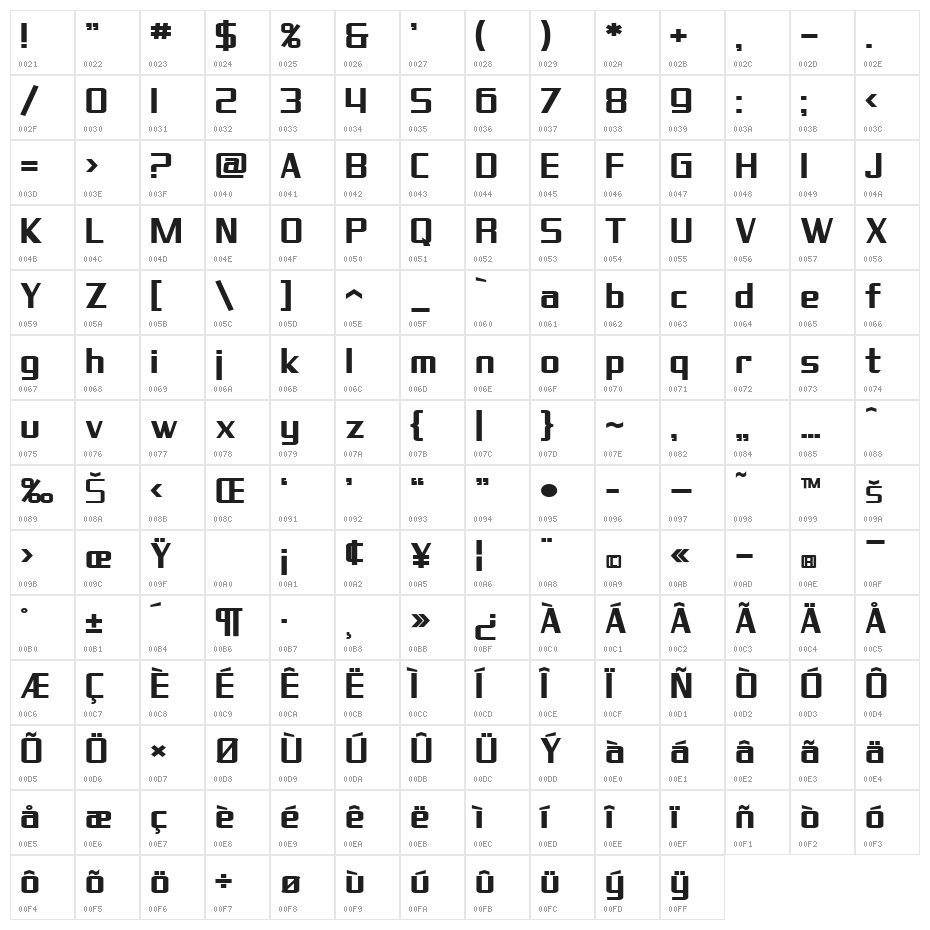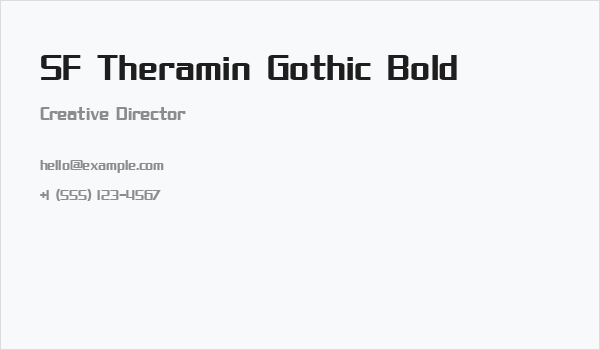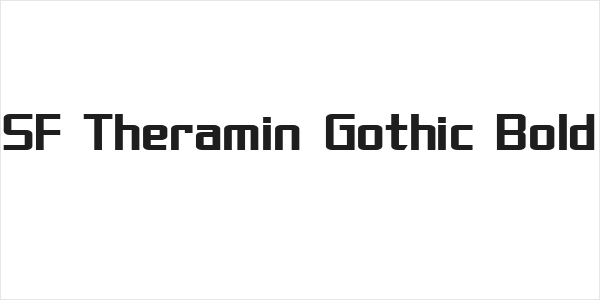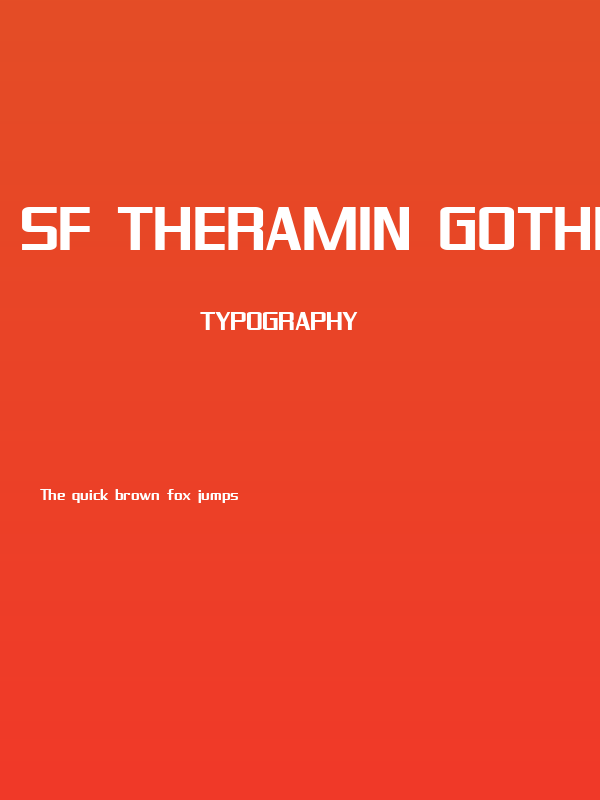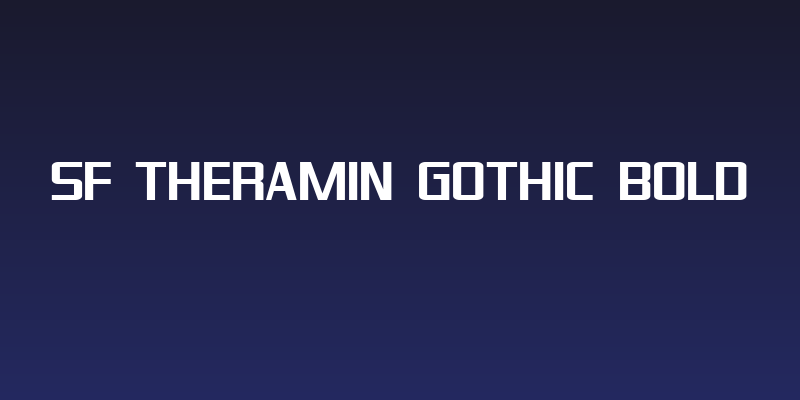
SF Theramin Gothic Bold Font
SF Theramin Gothic Bold Description
This font features a bold and modern design with a geometric structure. The uppercase letters are strong and assertive, with consistent stroke widths that convey a sense of stability and confidence. The lowercase letters maintain a similar geometric style, offering a cohesive look across different text cases. The numerals are clear and easy to read, making them suitable for various applications. Special characters are well-defined, adding versatility to the font's usage. Overall, the font's boldness and clarity make it ideal for impactful headlines and branding.
| Proposed Projects | Ideal for branding, headlines, posters, and digital media where a strong presence is needed. |